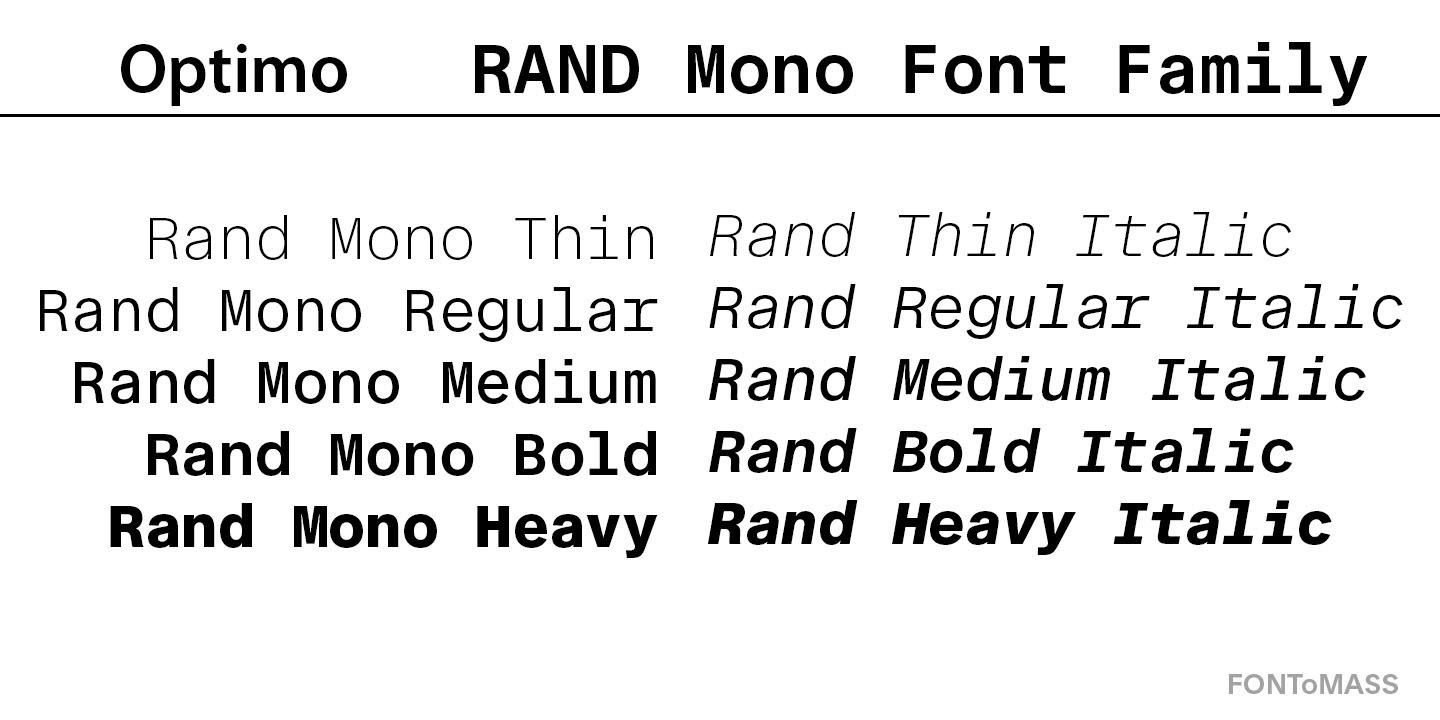
Rand Mono Font
Rand Mono Font is perfect for tech startups, coding academies, programming documentation, software development companies, cybersecurity firms, data analytics platforms, technical manuals, developer conferences, blockchain organizations, and contemporary technology interfaces.
Rand Mono Font creates excitement because it embodies the precise efficiency and systematic logic of modern programming with its monospaced letterforms and code-inspired character design. The font's uniform spacing and technical aesthetic instantly convey programming excellence and digital precision, making any brand appear technologically advanced and authentically developer-focused. Its carefully engineered coding details and systematic character create an immediate sense of technical authenticity that captivates audiences seeking programming experiences, technology quality, and products that celebrate the transformative power of coding excellence and software development innovation.
The Rand Mono Font family includes multiple weights and styles: Thin, Light, Regular, Medium, Bold, Black, Italic variants for each weight, Condensed, Extended, and Terminal versions. Each variant maintains the font's signature monospaced character while offering comprehensive typographic flexibility for complex programming systems and technical applications.
This precise typeface brings the authentic spirit of software development into contemporary technology design with remarkable accuracy and programming appeal. Rand Mono Font Free Download provides technology brands and programming organizations with access to premium coding-inspired typography that embodies the essence of software excellence and programming precision. The font's systematic design and coding authenticity make it ideal for businesses seeking to establish meaningful connections with developer communities who appreciate programming craftsmanship, technical precision, and the transformative power of software development that creates digital solutions through coding excellence. Whether you're developing brand identities for tech companies, creating materials for programming platforms, designing interfaces for developer tools, or producing content for technology education, this font delivers the authentic programming atmosphere that resonates with audiences seeking genuine coding experiences, technical quality, and the systematic precision that comes from embracing authentic software development practices. Its versatile design ensures outstanding performance across both technical printed materials and advanced digital programming platforms while maintaining the character of authentic coding typography. The font excels in applications requiring technical credibility and programming appeal. Software development professionals appreciate its ability to convey coding authenticity while remaining highly functional for various technical communications and programming promotional materials. The comprehensive character set includes programming symbols and extensive international language support, making it perfect for global technology brands and international programming organizations seeking to communicate authentic coding values, software excellence, and technical precision to diverse worldwide developer communities who embrace programming innovation, appreciate coding craftsmanship, and value the transformative power of genuine software development that creates technological solutions through systematic programming, logical thinking, and the continuous pursuit of coding excellence that drives digital innovation forward.